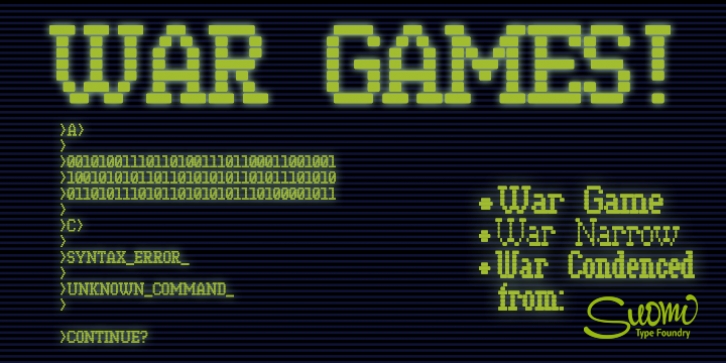
War downloadDesigner: Tomi Haaparanta
Publisher: Suomi
The matrix screen types from the movie War Games stuck in my mind, so I decided to make few versions.